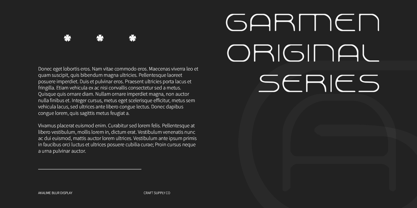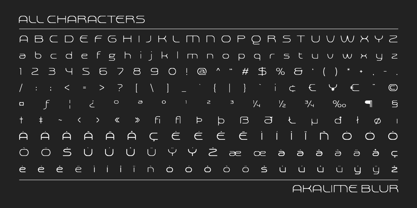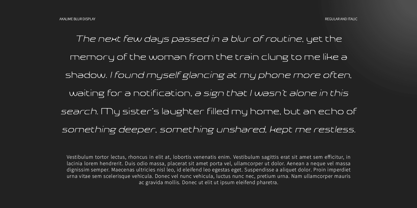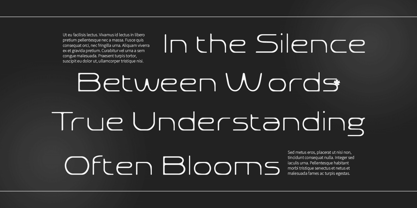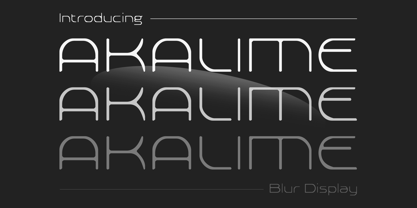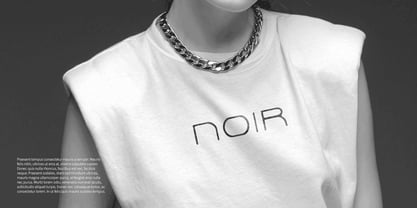
Akalime Blur
Akalime Blur Font: Embracing Modern Dynamics
Geometric Modern Sans Serif with Blur Effect
Akalime Blur is a modern sans serif font characterized by its geometric design and enhanced by a unique blur effect, exuding a contemporary and dynamic character. The structured lines of its geometric shapes bring a sense of order and precision, creating a strong visual foundation that is perfect for modern design projects.
Striking Visual Impact for Branding and Advertising
The clean, sharp edges of Akalime Blur make it an excellent choice for branding and advertising. Its ability to maintain clarity while showcasing a progressive aesthetic ensures that it stands out in any context, whether on product packaging, promotional materials, or digital platforms. This font is designed to capture attention and make a memorable impression.
Fluidity and Movement in Design
The incorporation of a blur effect adds a touch of softness and fluidity to Akalime Blur, creating a visually striking contrast against its geometric foundation. This unique combination introduces a sense of movement and modernity, allowing the font to resonate with audiences seeking innovation. The blurred elements breathe life into static designs, making them feel more engaging and dynamic.